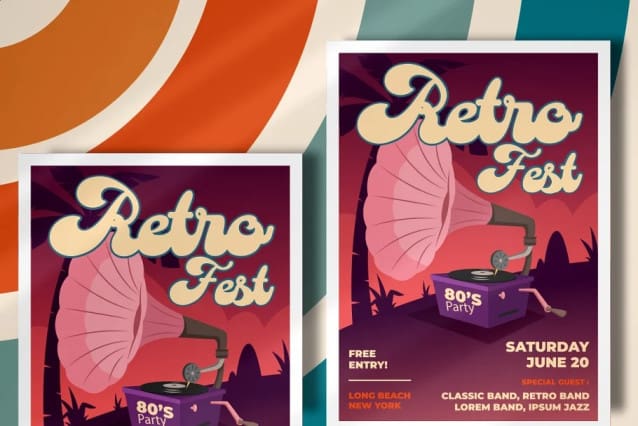
Psykron Retro Font is more than just a font; it’s a journey back in time to the groovy days of vintage design. This bold retro script font showcases a unique, tebaly groovy style that’s bound to catch the eye and stir nostalgia. What truly sets Psykron apart is its captivatingly thick lower section, adding an extra layer of uniqueness to your designs and channeling a strong vintage and retro vibe.
The font’s characteristic groovy shapes and thick base transport you to an era when bold expressions dominated typography. Whether you’re working on a logo, branding, invitations, packaging, posters, titles, business materials, greeting cards, magazine layouts, headlines, or any design project that calls for a touch of vintage retro charm, Psykron offers versatility that goes beyond conventional fonts.
Explore an array of alternative characters with Psykron Retro, allowing you to craft distinct and captivating visuals. Infuse your projects with the essence of a bygone era by embracing the retro flair that Psykron brings.